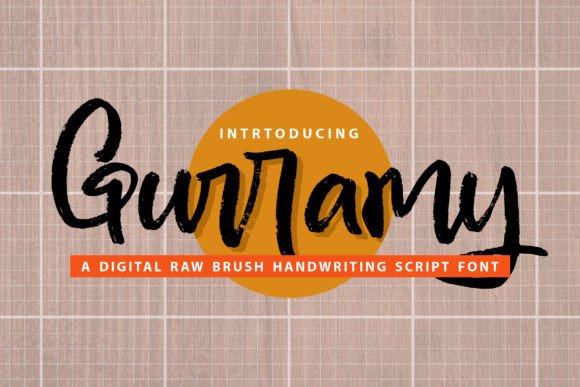
Unleash Your Creative Spirit with Gurramy: The Bold Embroidery Masterpiece
In a world where fonts are the silent heroes of visual communication, Gurramy emerges as a true standout. This captivating script font, meticulously crafted by the talented Vunira, is an ode to boldness, energy, and confidence. Gurramy's spirited strokes and distinctive texture bring an edgy touch to any design endeavor, making it the perfect ally for branding, advertising, and social media artistry.
Gurramy's versatility is as boundless as your imagination. Picture your designs adorned with this font's confident swagger, commanding attention and leaving an unforgettable impression. It's the perfect tool for those who dare to break free from the mundane and embrace the extraordinary.
With Gurramy, your embroidery projects will transcend the ordinary and enter the realm of the truly exceptional. Its bold lines and intricate details will add a layer of sophistication and personality to your creations, making them stand out from the crowd. Unleash your inner artist and let Gurramy's energy infuse your designs with a life of their own.
Beyond its visual allure, Gurramy is a font of convenience. Its PUA encoding ensures effortless access to a treasure trove of glyphs and swashes, adding an extra layer of depth and artistry to your work. No more tedious searching or complicated maneuvers – just seamless creative expression at your fingertips.
So, if you're ready to embark on a design journey where boldness meets elegance, where creativity knows no bounds, and where your projects become masterpieces, then Gurramy is your guiding star. Embrace its energy, unleash your potential, and let your designs speak volumes with Gurramy, the ultimate font for bold embroidery.